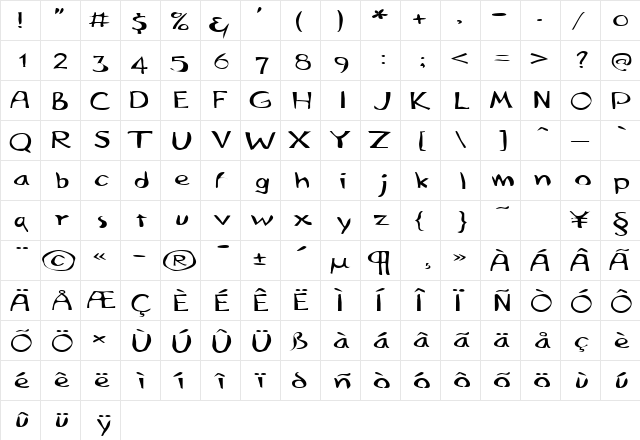
StonehengeExtended Regular
Design Context for StonehengeExtended Typeface
StonehengeExtended is a composed and adaptable typeface that performs quietly and consistently across a wide range of design contexts.